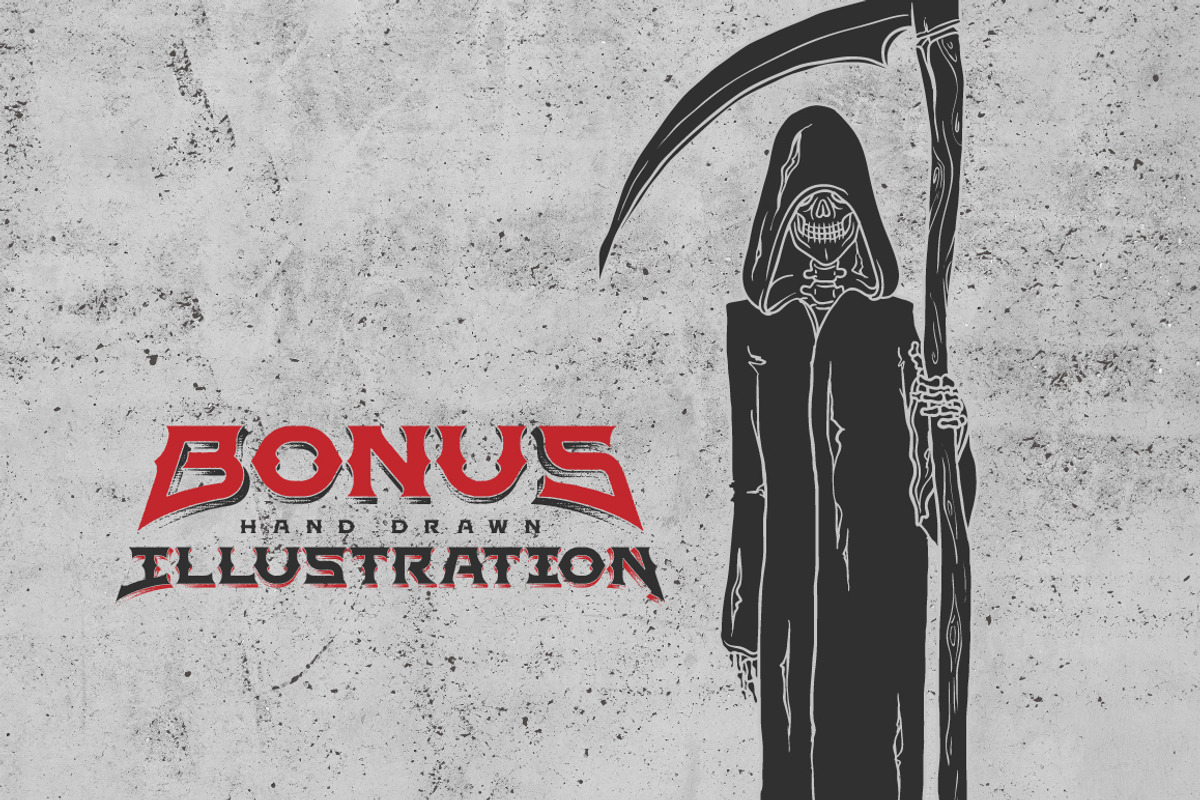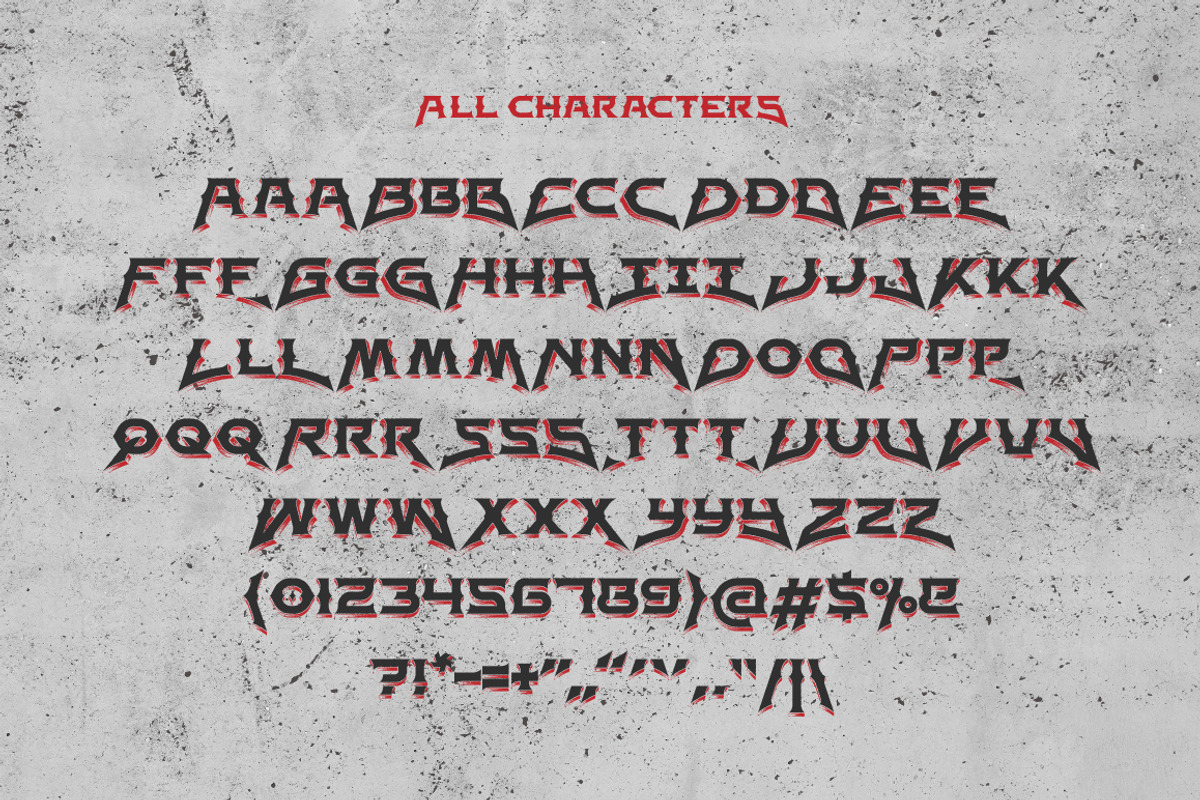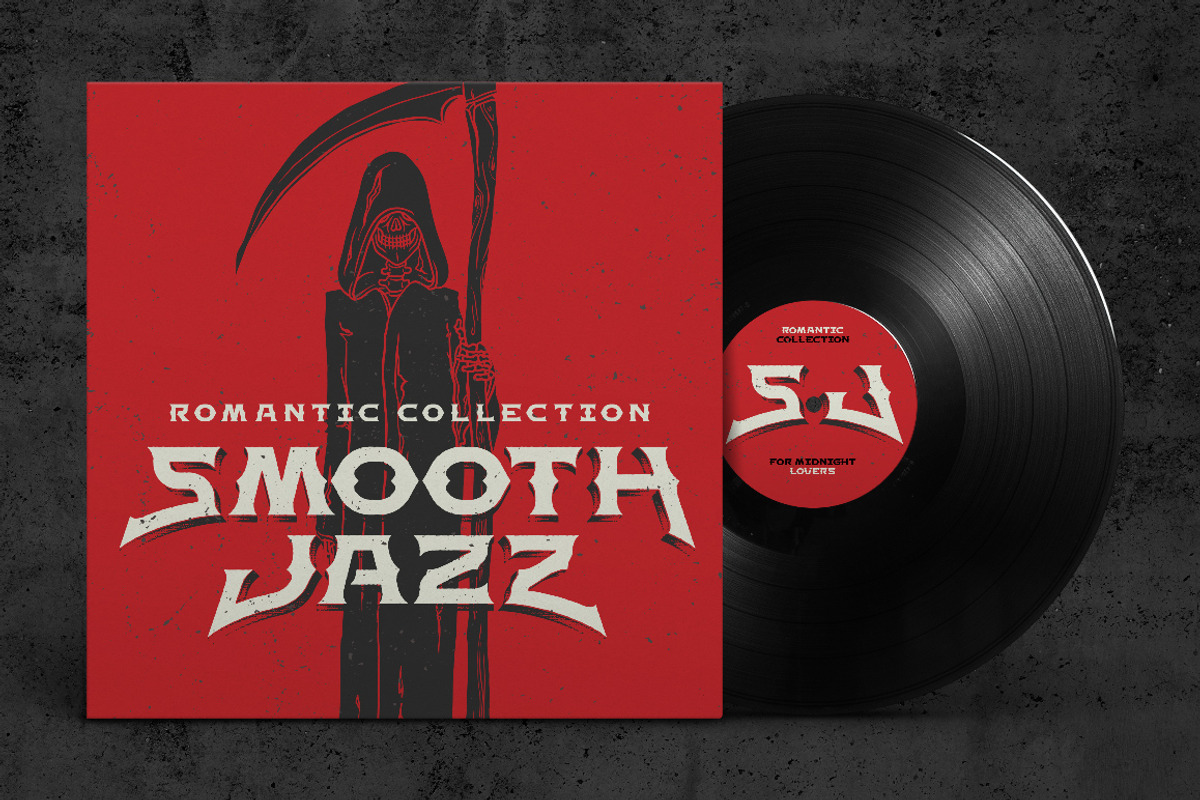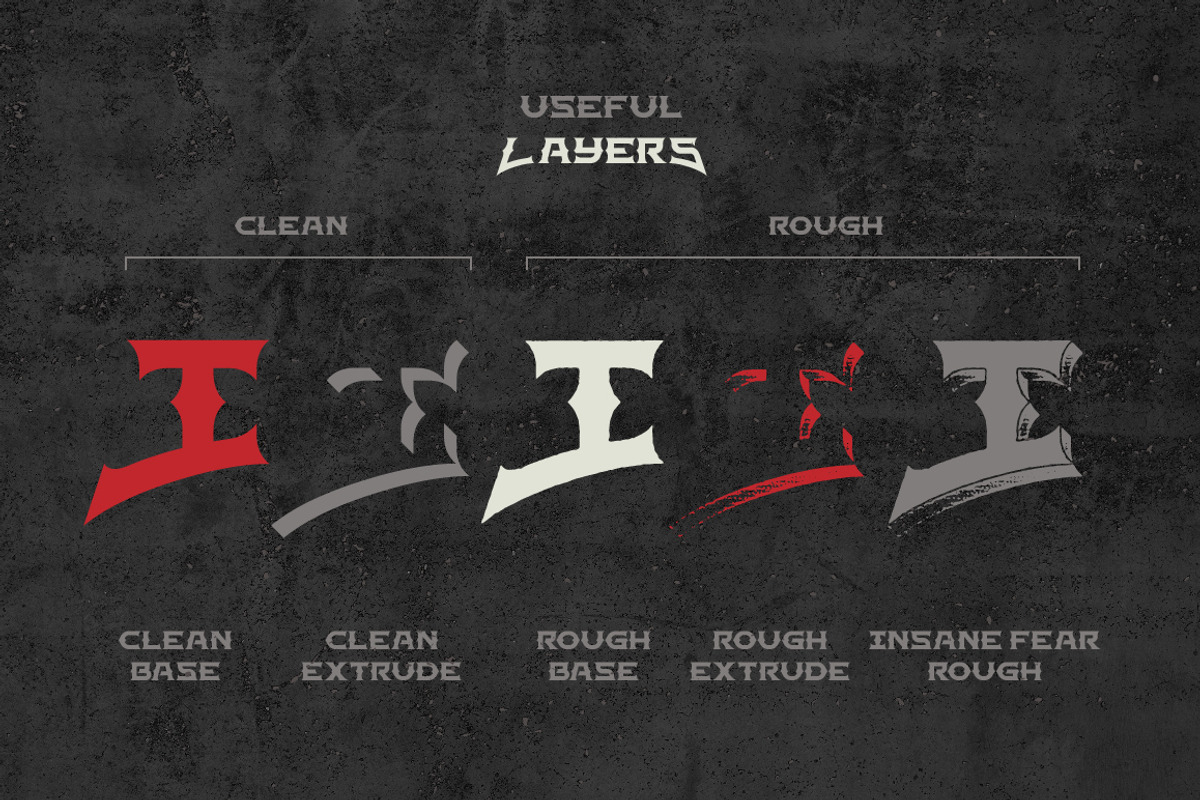
Insane Fear font
Insane Fear font by Gleb Guralnyk is a font selected for branding, posters, packaging, typography.
- It includes rough and clean versions with separated font layer of extrude effect.
- Also as a bonus a grim reaper illustration is included.
- It includes rough and clean versions with separated font layer of extrude effect.
- Also as a bonus a grim reaper illustration is included.
- Just select the last letter and enable "Stylistic Alternate" feature in OpenType tab.
Insane Fear font by Gleb Guralnyk fits naturally into Branding, posters, packaging, typography.